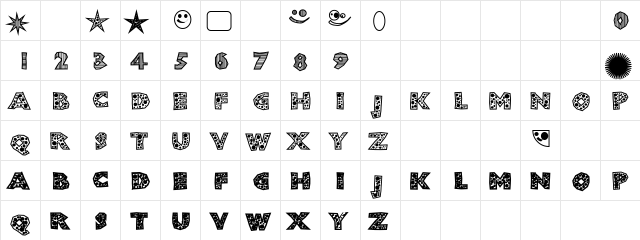
ShlockoBlockoDroppoCaps Regular Font Preview
ShlockoBlockoDroppoCaps Regular
Design Context for ShlockoBlockoDroppoCaps Typeface
ShlockoBlockoDroppoCaps is a composed and adaptable typeface that performs quietly and consistently across a wide range of design contexts.